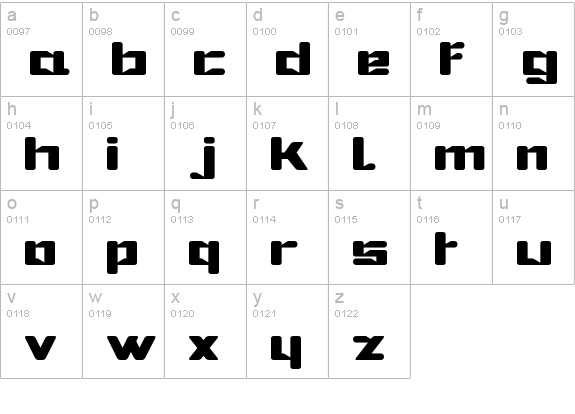
Hibernate Font Details
Introducing Hibernate font, a visually stunning typeface that exudes elegance and sophistication. Its sleek lines and modern design make it a versatile choice for a wide range of creative projects. The unique curves and sharp angles of Hibernate font create a sense of dynamism and energy, making it perfect for branding, advertising, and editorial design. Best of all, Hibernate font is completely free to download at FontsMarket.com. This means you can easily add this stylish font to your collection without breaking the bank. Don't miss out on the opportunity to enhance your designs with the captivating allure of Hibernate font. Download it today and let your creativity shine!